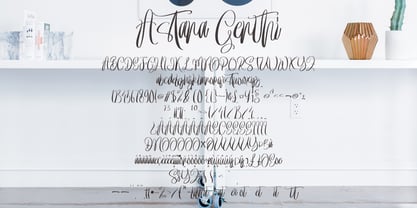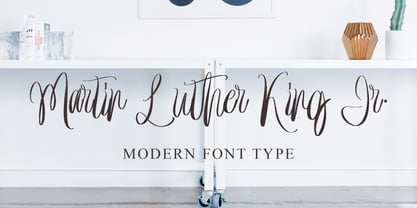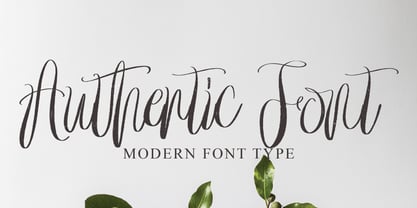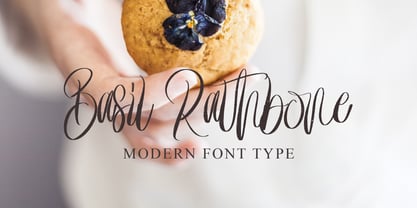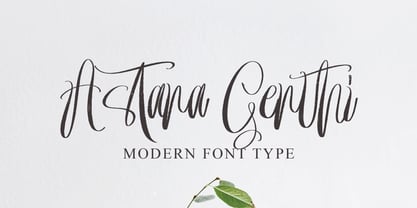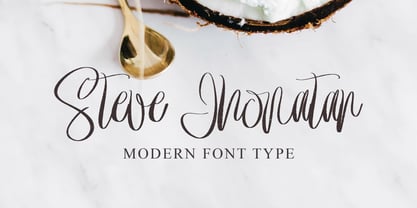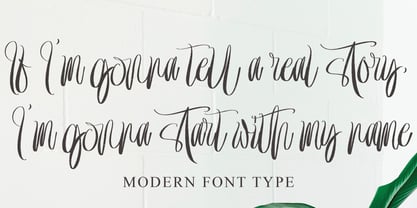
Astana Genthi
by Naatypo
The Astana Genthi Font Family was designed by Kurnia Elis Setyorini and published by Naatypo. Astana Genthi contains 1 styles.
Meet Astana Genthi - an epitome of contemporary sophistication and tender charm crafted into a handwritten font. Exuding an aura of elegance and luxury, this piece of art effortlessly graces your designs with a gentle touch. This sweet, casual, and curvaceous font, spiced with a measure of funk, pays homage to the authentic rhythm of natural brush lettering. The subdued texture, reminiscent fo a brush's kiss, is Astana Genthi’s final enchanting detail, making it the ideal choice for bold statements and memorable branding.